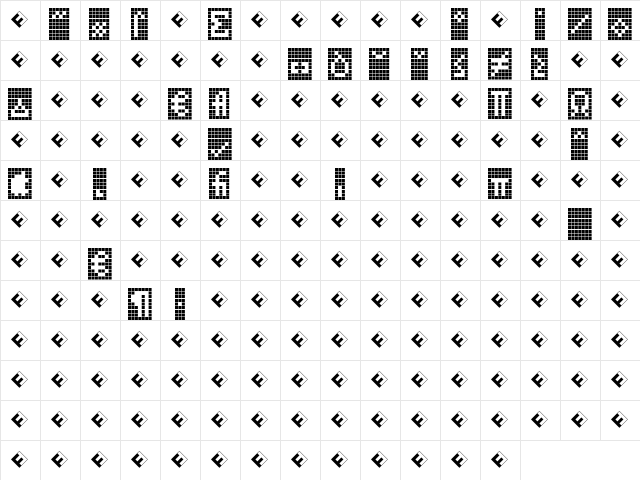
CallOne-NegativExp Regular
Design Context for CallOne-NegativExp Typeface
CallOne-NegativExp takes a measured approach to typography — its balanced proportions and neutral character make it a reliable workhorse for both digital and print work.